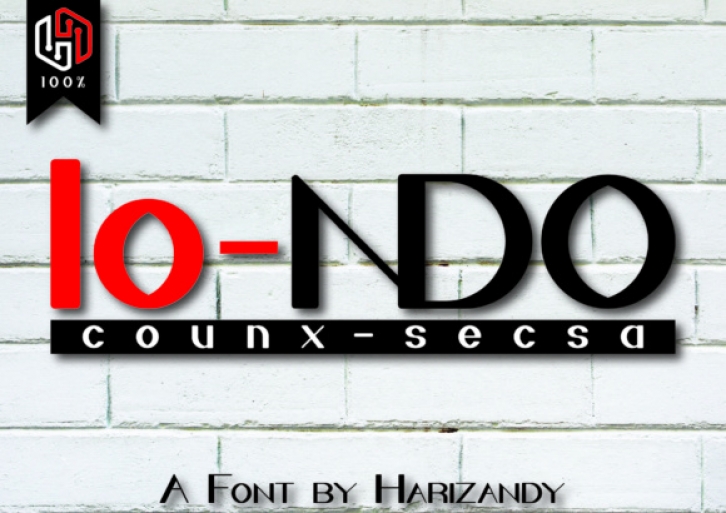
Londo is a modern display font, specifically designed for branding projects; this simple font is elegant and clean, and looks exemplary as a headline to your creative work.